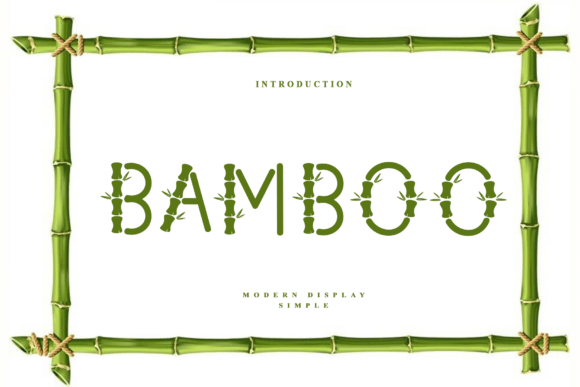
Bamboo Font: A Creative Escape into Nature
Have you ever been on a hike through a lush bamboo forest, feeling the sun’s warm rays filtering through the delicate leaves, and the soft rustling of the stalks in the gentle breeze? For designers, this serene atmosphere can be a source of inspiration, sparking ideas for unique and captivating visual identities. It’s exactly this feeling that the Bamboo Font embodies, transporting your audience to a world of natural beauty and tranquility.
Developed with meticulous attention to detail, the Bamboo Font is a highly creative and thematic display font that brings the essence of bamboo to your designs. Perfect for eco-friendly branding, spa and wellness centers, and Asian-inspired culinary menus, this font offers a smart, nature-focused, and unique visual identity that sets you apart from the crowd.
Bamboo Font Key Features
- Font Style: Bamboo Font is a sans-serif font with a unique, natural feel, reminiscent of bamboo.
- Character Set: Includes a comprehensive set of characters, including Latin, Greek, Cyrillic, and Devanagari scripts, covering multiple languages.
- Unique Characteristics: Features a distinctive, curved design, with subtle nuances that evoke a sense of natural, organic growth.
Bamboo Font Review
As a designer, I was excited to explore the Bamboo Font. Here’s my honest take on what works and what doesn’t.
- Unique aesthetic: The Bamboo Font has a distinct, natural feel that’s perfect for outdoor or eco-themed projects.
- Legibility: Despite its unusual design, the font is surprisingly easy to read, especially at larger sizes.
- Customization options: The font comes with a range of weights and styles, allowing for some flexibility in terms of design.
- Limited character set: The font’s character set is somewhat limited, which can make it difficult to use for extended text or complex projects.
- Lack of consistency: Some characters don’t quite match the rest of the font, which can create an inconsistent visual experience.
Overall, the Bamboo Font is a great choice for projects that require a unique, natural feel. However, its limitations make it less suitable for more complex or text-heavy designs. With some careful planning and selection of characters, it can be a great addition to your design toolkit.
Getting the Most Out of Bamboo Font
To get the most out of the Bamboo Font, consider the following tips:
- Use it for Asian-inspired designs or branding.
- Pair it with bold, geometric shapes for a striking contrast.
The Bamboo Font is ideal for:
- Asian-themed designs, such as Chinese New Year or Japanese-inspired art.
- Botanical or nature-inspired designs, such as garden or park branding.
- Modern and minimalist branding, such